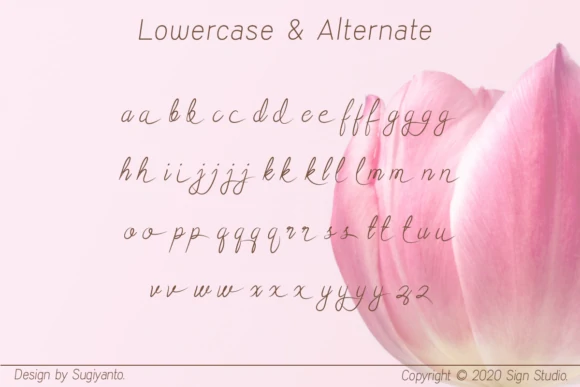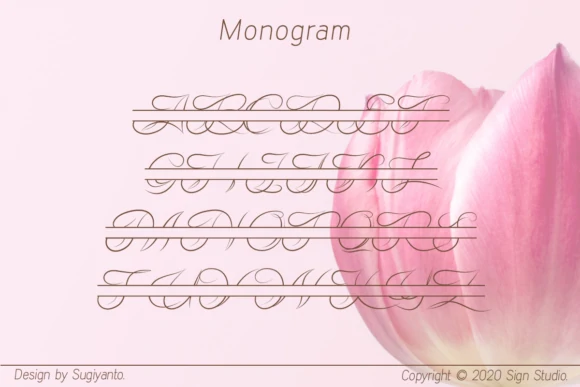
Adelyne is a beautifully designed script font inspired by the elegance of classic typography. Its flowing lines and smooth curves give it a stylish and timeless appeal, making it a perfect choice for creative design work. From branding and logos to social media graphics, Adelyne adds a touch of sophistication wherever it’s used.
This handwritten font brings personality and warmth to your text. It works wonderfully for both large, eye-catching headlines and smaller text blocks, giving your layouts a natural and artistic feel. Whether you’re designing invitations, posters, or packaging, Adelyne offers flexibility and charm in every letterform.
No matter the medium—web, print, or motion design—Adelyne stands out with its unique character. Its graceful strokes and balanced structure ensure your message looks both professional and personal. Let Adelyne elevate your project with its handcrafted beauty.